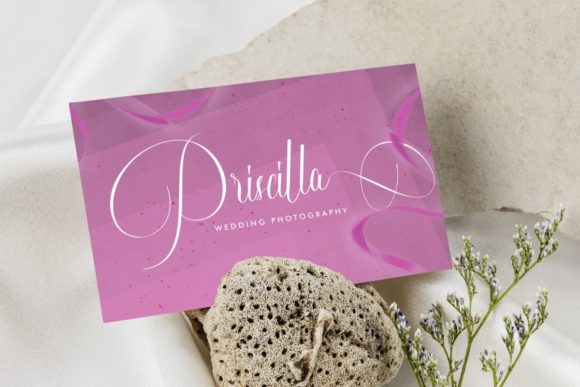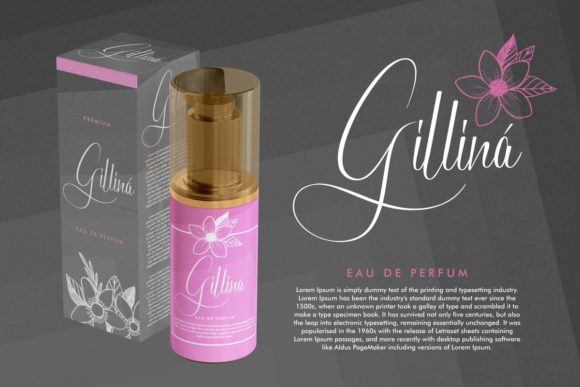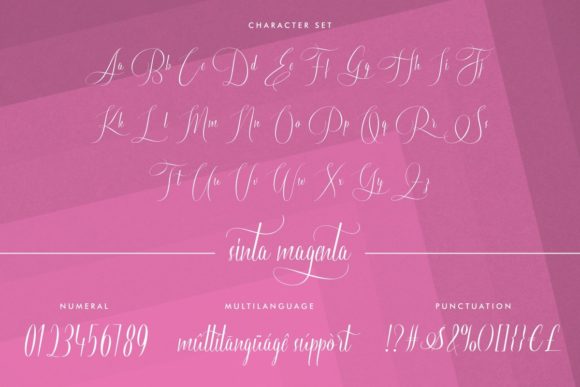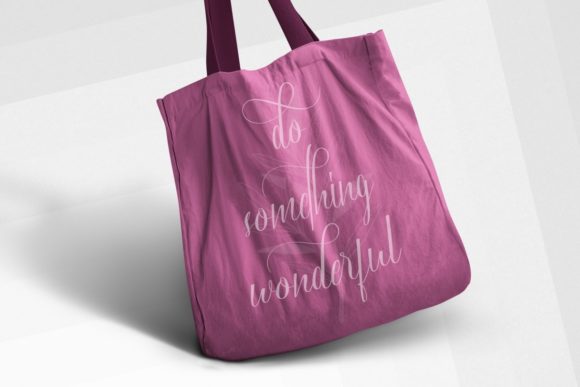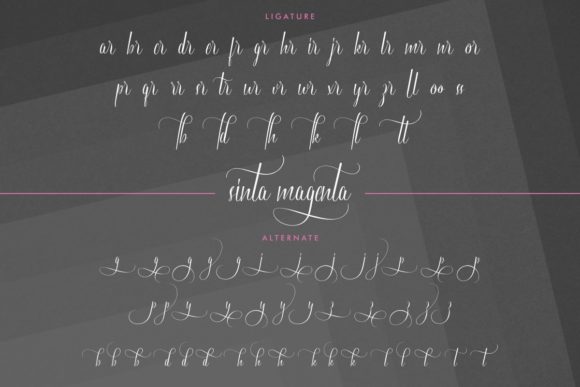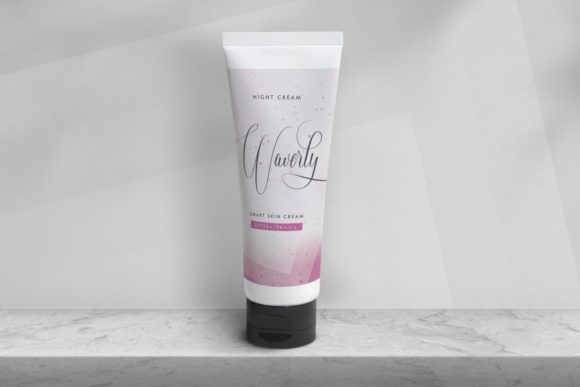
Introduction to Sinta Magenta Font
Have you ever been stuck on a design project, staring at a blank page, desperately seeking the perfect font to bring your creative vision to life? That’s exactly where I was when I stumbled upon the enchanting Sinta Magenta Font. Its delicate, thin letters and elegant script style captivated me, and I knew I had to share this hidden gem with fellow designers.
Sinta Magenta Font is more than just a pretty face; it’s a valuable resource for designers looking to elevate their high-quality creative projects. With its PUA encoded features, accessing all glyphs and swashes is a breeze, allowing for seamless customization and endless design possibilities. Whether you’re working on a free download or a commercial project, this font is sure to impress with its ravishing style and versatility.
Imagine being able to create stunning designs with a transparent background, effortlessly blending your text with any image or background. That’s exactly what Sinta Magenta Font allows you to do. As a design resource, it’s a game-changer, and I’m excited to dive deeper into its features and benefits in this article.
Key Features of Sinta Magenta Font
- High-quality design suitable for creative projects, offering a unique and eye-catching style.
- Designed to be versatile, making it suitable for a wide range of creative projects, from branding and marketing materials to digital art and graphics.
Honest Review: Sinta Magenta Font
I recently had the chance to work with the Sinta Magenta Font, and I must say it’s a great addition to any designer’s toolkit. The font is a high quality, creative resource that can be used for a wide range of projects.
- What works well: The Sinta Magenta Font is highly versatile and can be used for both digital and print designs. The transparent background makes it easy to overlay text on images or other design elements.
- What works well: The font comes in a range of styles, from bold and playful to elegant and sophisticated, making it a great choice for designers working on creative projects.
However, there are a few limitations to consider. The font may not be suitable for use in very small sizes, and the transparent background can sometimes make it difficult to read.
Overall, I’m impressed with the Sinta Magenta Font. It’s a high quality, creative resource that can be used for a wide range of projects. While it may have a few limitations, it’s a great addition to any designer’s toolkit.
Tips for Getting the Most Out of Sinta Magenta Font
One tip for getting the most out of the Sinta Magenta Font is to use it in combination with other design elements, such as images or graphics. This can help to create a visually appealing and creative project. Another tip is to experiment with different font sizes and styles to find the perfect look for your design.
The Sinta Magenta Font is a versatile design resource that can be used in a variety of common use cases, such as:
- Documents